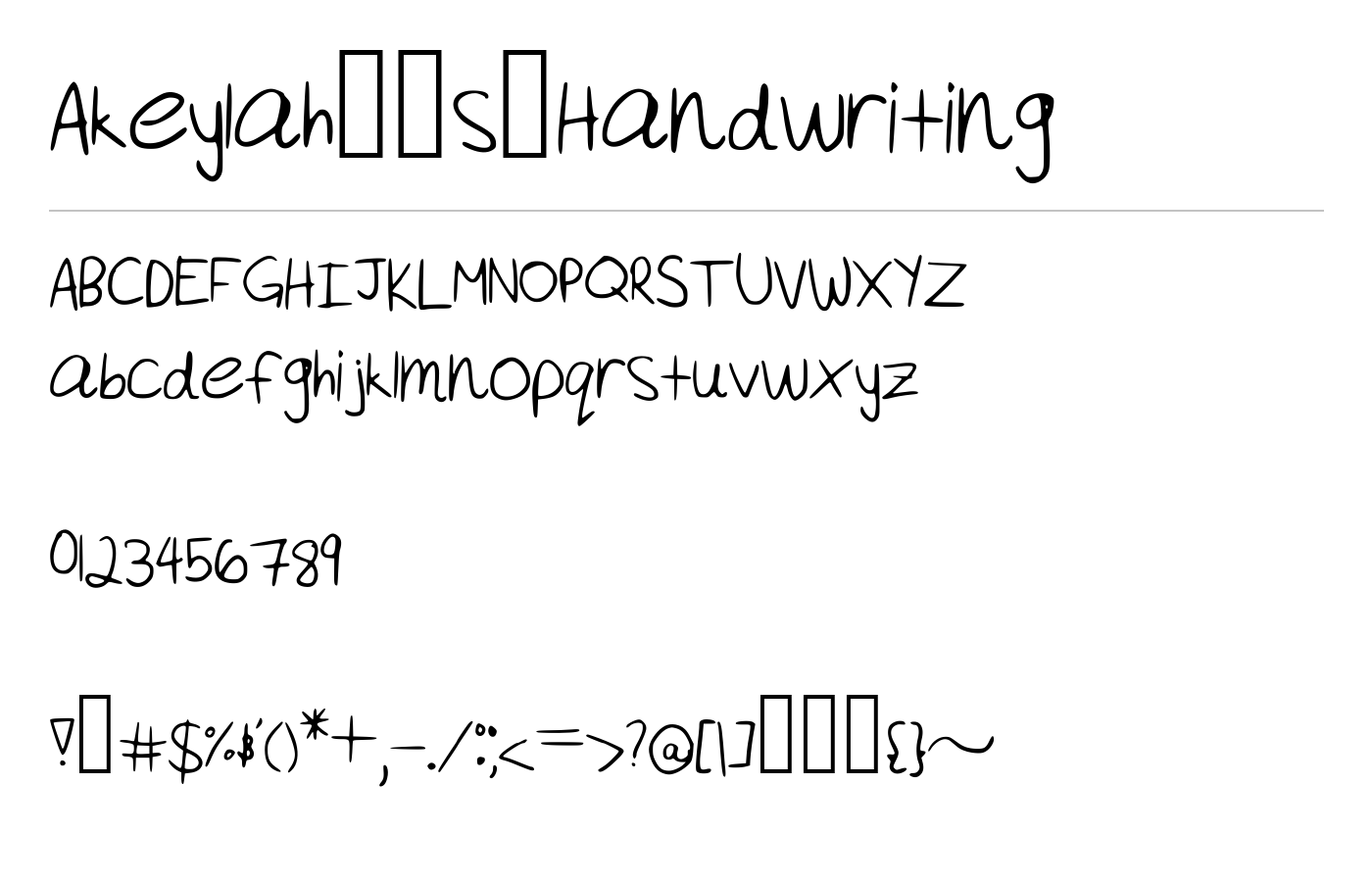
Akeylah’s Handwriting is a casual, slim handwritten font with a playful and friendly personality. Its clean, tall letterforms and light strokes give it an informal, approachable feel, making it perfect for personal projects, greeting cards, or branding that seeks a warm, human touch. This font works well for headlines and short texts where a relaxed, creative vibe is desired.
Akeylah__s_Handwriting Font
About Akeylah__s_Handwriting Font